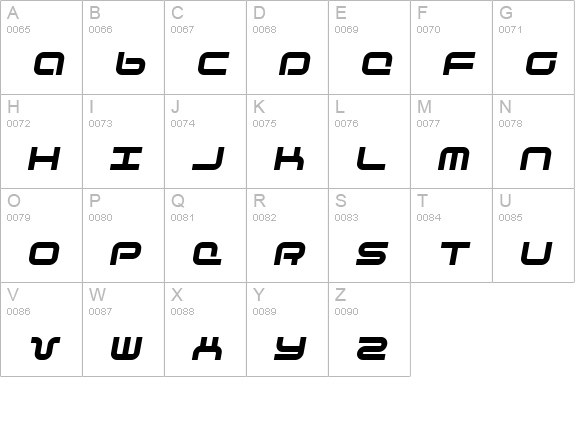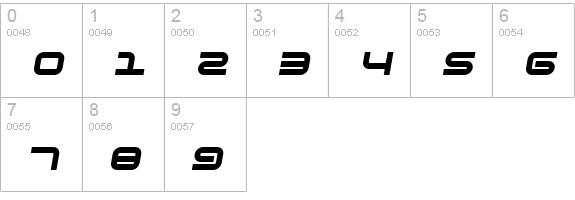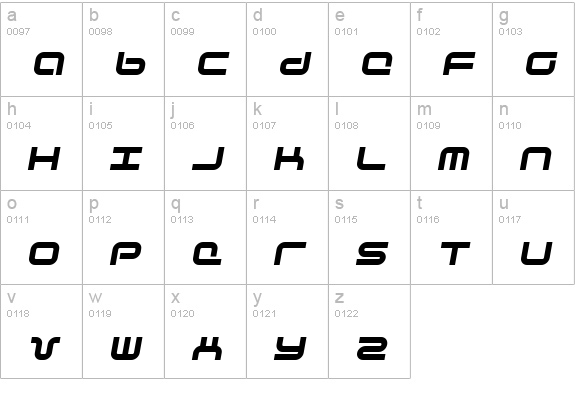
Phutura Italic Font Details
Phutura Italic is a distinctive, italic variant in the Phutura typeface family \xE2\x80\x94 well suited to design and typography projects.
Phutura Italic is a visually stunning and elegant font that embodies sophistication and creativity. With its sleek and modern design, this typeface adds a touch of class to any project or design. The italicized letterforms have a unique and distinctive style, exuding a sense of elegance and charm. The flowing curves and sharp angles of Phutura Italic create a harmonious balance, making it perfect for both headings and body text. What sets Phutura Italic apart is that it is not only visually appealing, but also freely available to download. You can easily access this font at FontsMarket.com, where it is offered as a free download. This means that you can use Phutura Italic in your personal and commercial projects without any restrictions or limitations. Whether you are a designer looking to add a touch of sophistication to your latest creation or an individual wanting to enhance your personal documents, Phutura Italic is a versatile and accessible font choice. With its seamless legibility and timeless appeal, Phutura Italic is suitable for a wide range of applications. From elegant wedding invitations to sleek corporate presentations, this font effortlessly elevates the overall aesthetic of any design. Its versatility extends to various mediums, including print and digital formats, ensuring that Phutura Italic will always make a lasting impression. In conclusion, Phutura Italic is a free font that effortlessly combines elegance, creativity, and accessibility. Its sleek design and distinctive italicized letterforms make it a versatile choice for any project or design. Download Phutura Italic from FontsMarket.com today and elevate your creations to new heights.